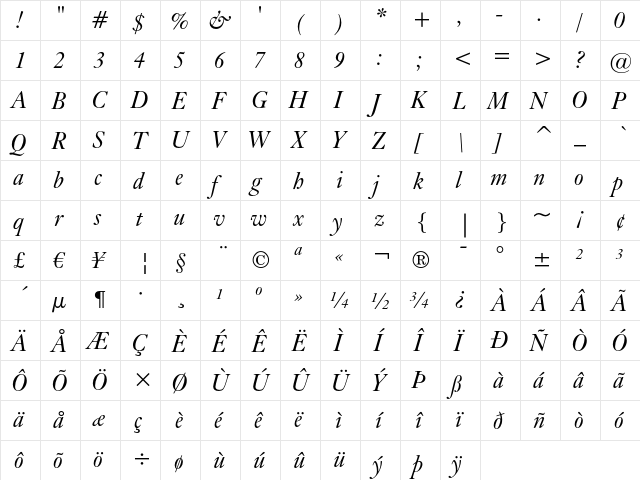
Kis Italic
Design Context for Kis Typeface
Kis offers clean, dependable letterforms without strong stylistic allegiance, making it a practical choice for designers who need flexibility. The slanted form adds forward momentum and visual energy.
Pro Tip: Use Kis for emphasis, pull quotes, and subheadings where its slanted energy can add rhythm to the layout.